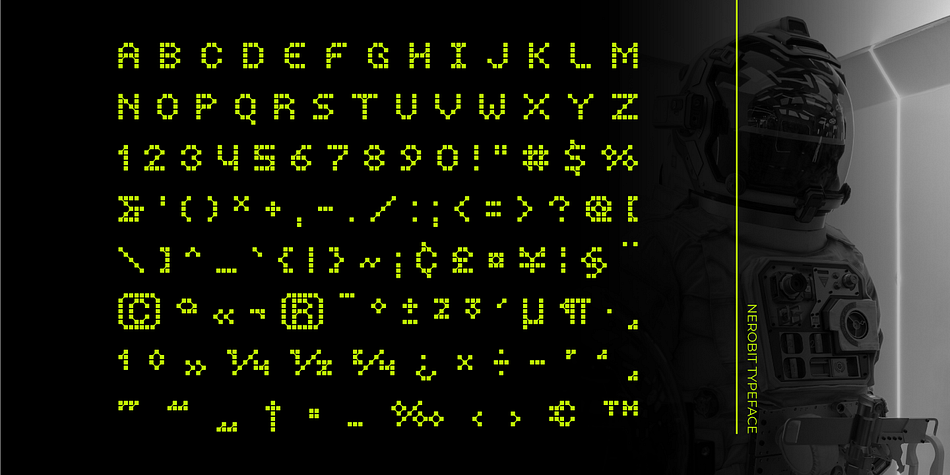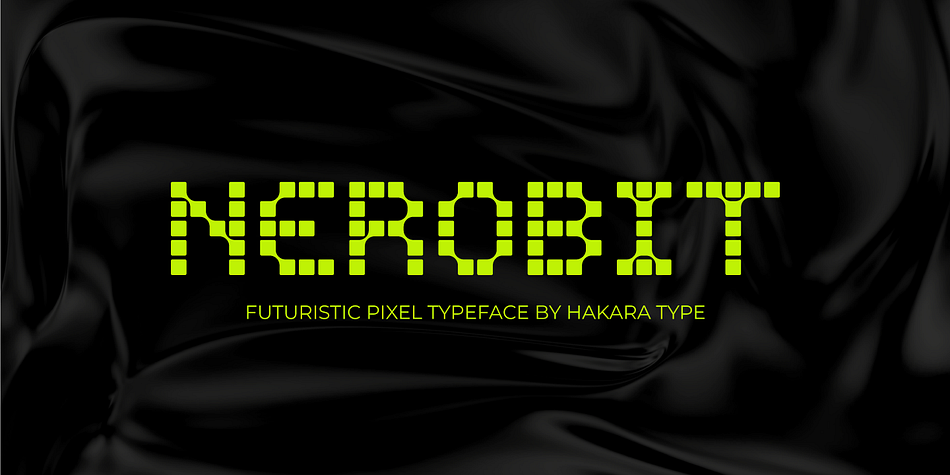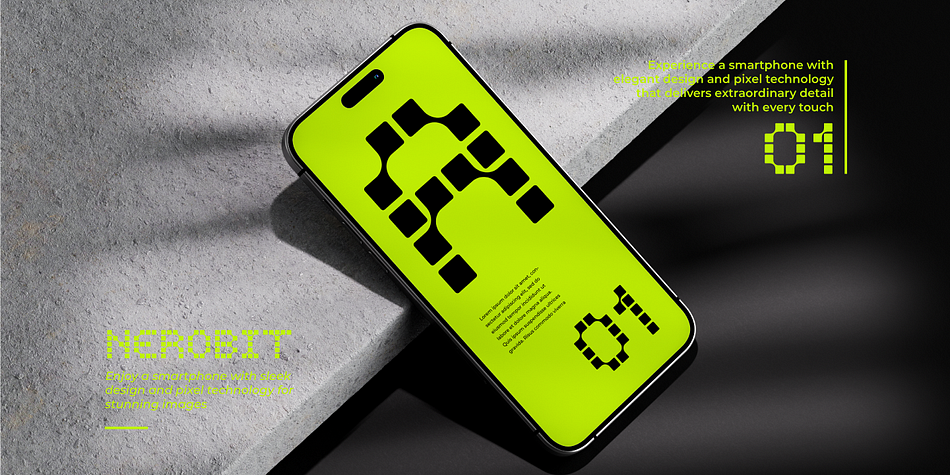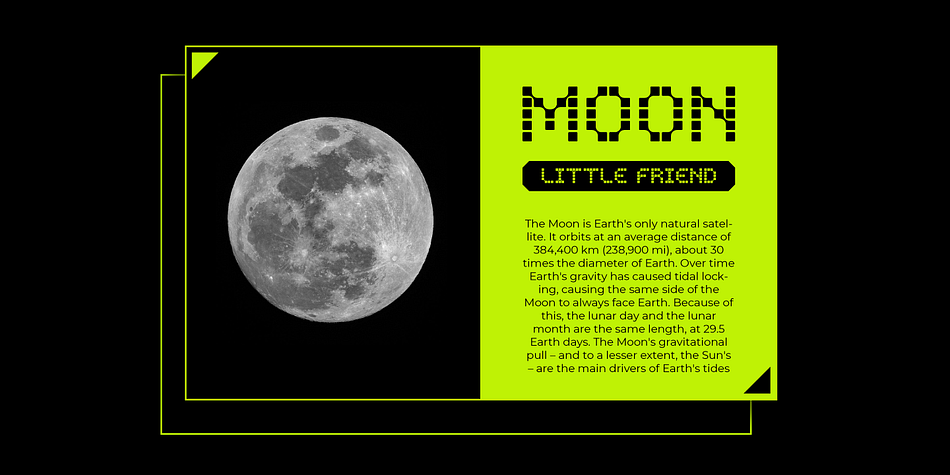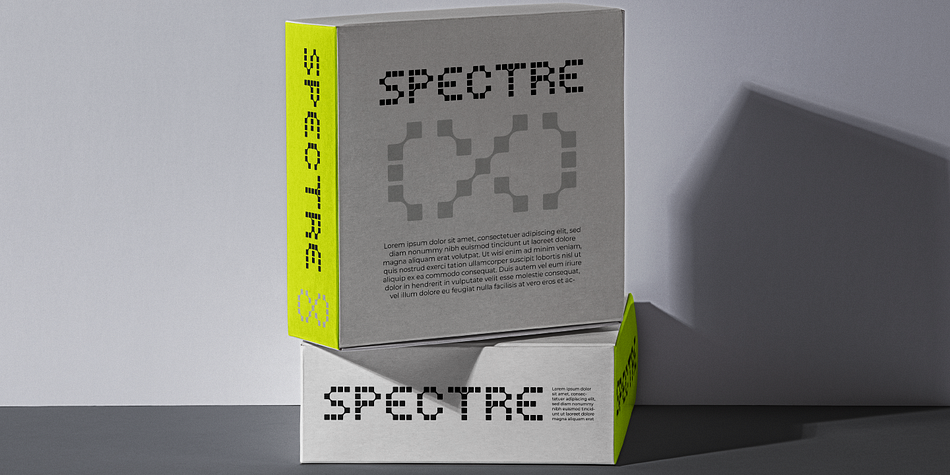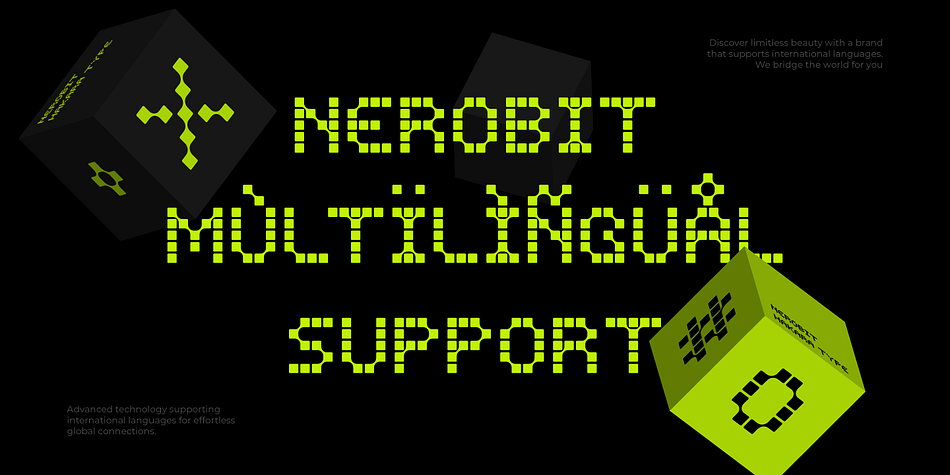
Nerobiit
Nerobiit is a pixel font family published by Hakara Type.
Nerobit is a pixel display font that brings a futuristic touch to your designs. With a clean and precise arrangement of interconnected pixels, Nerobit adds a modern and cutting-edge feel to every visual project. Transform text into stunning and unique art with Nerobit, the perfect choice for innovative digital displays.